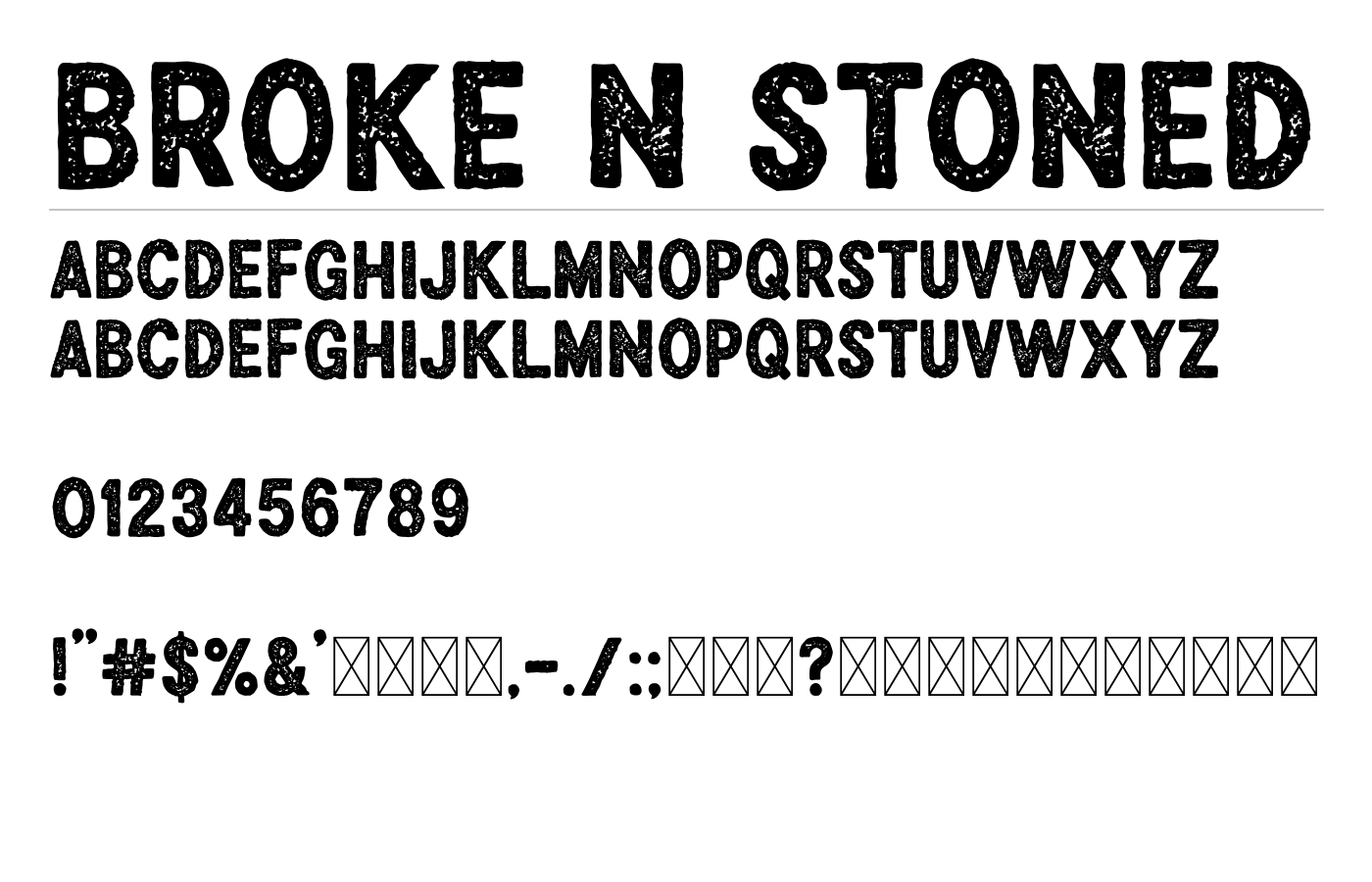
Broke N Stoned is a bold, condensed sans serif font with a distressed texture that gives it a rough, worn-out look. Its all-uppercase, sturdy letterforms convey a gritty, casual vibe, making it perfect for edgy branding, posters, and designs needing a raw, urban feel. This font works well in headlines and display uses where a strong, impactful statement is desired.
Broke N Stoned Font
About Broke N Stoned Font
| Font family | Broke N Stoned Font |
| Designer | Stationjack |